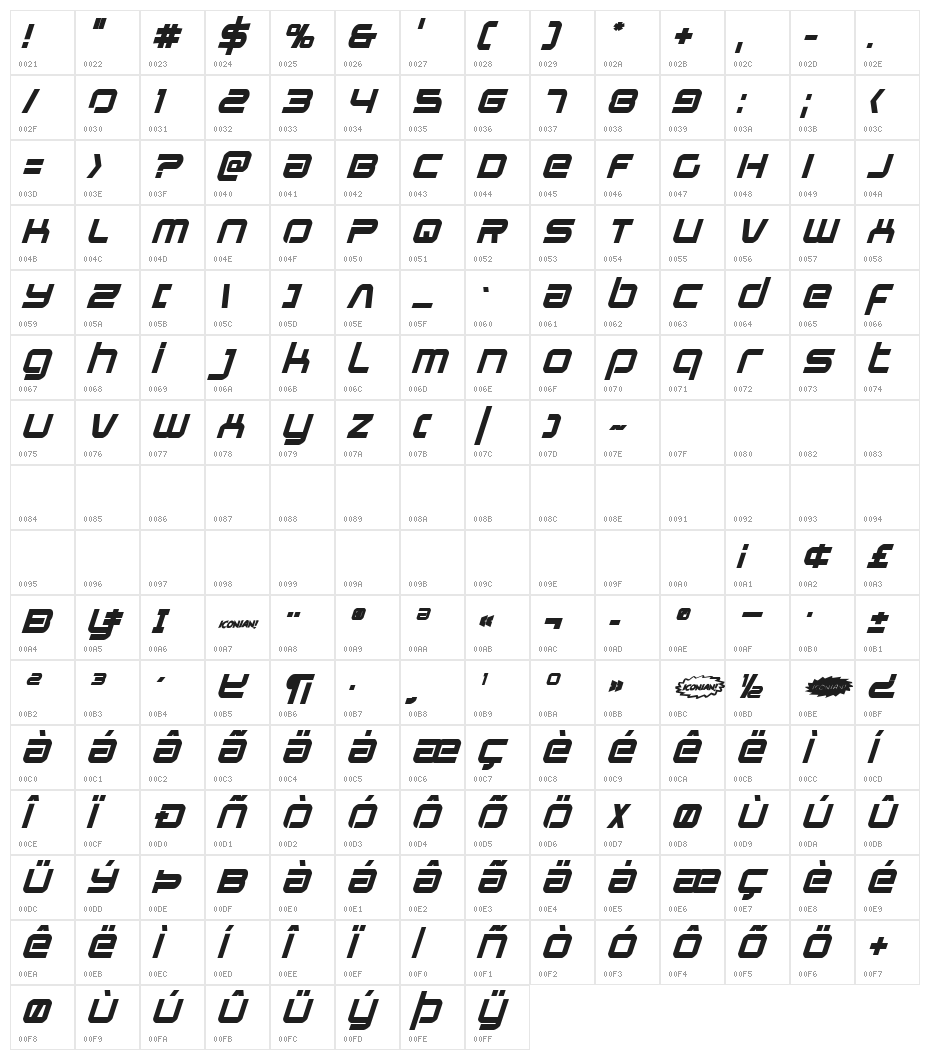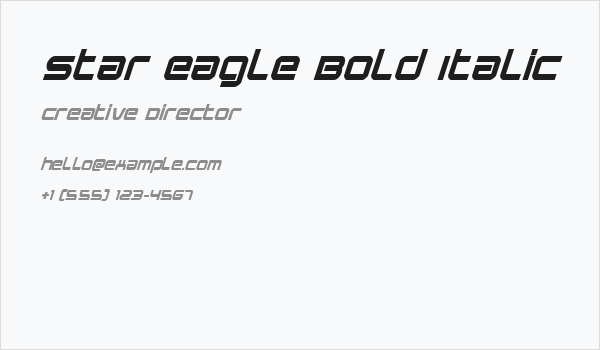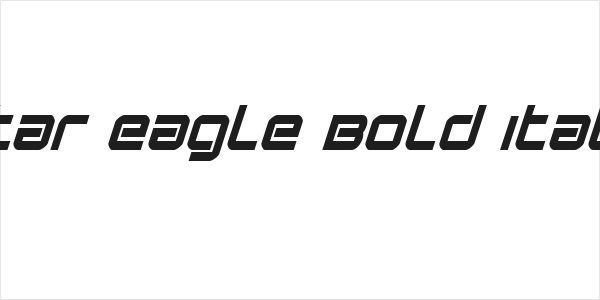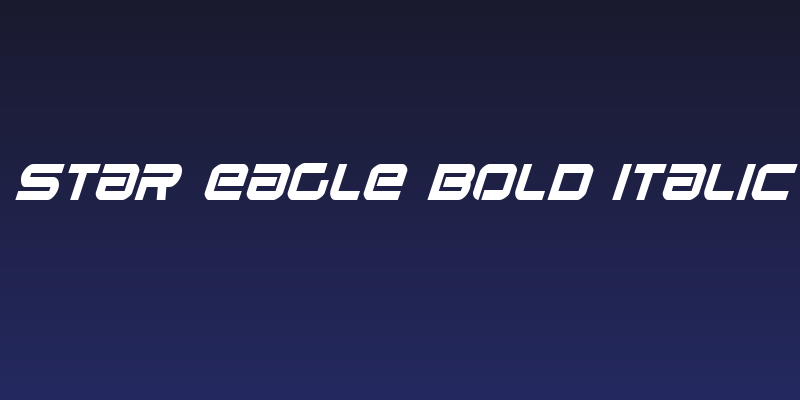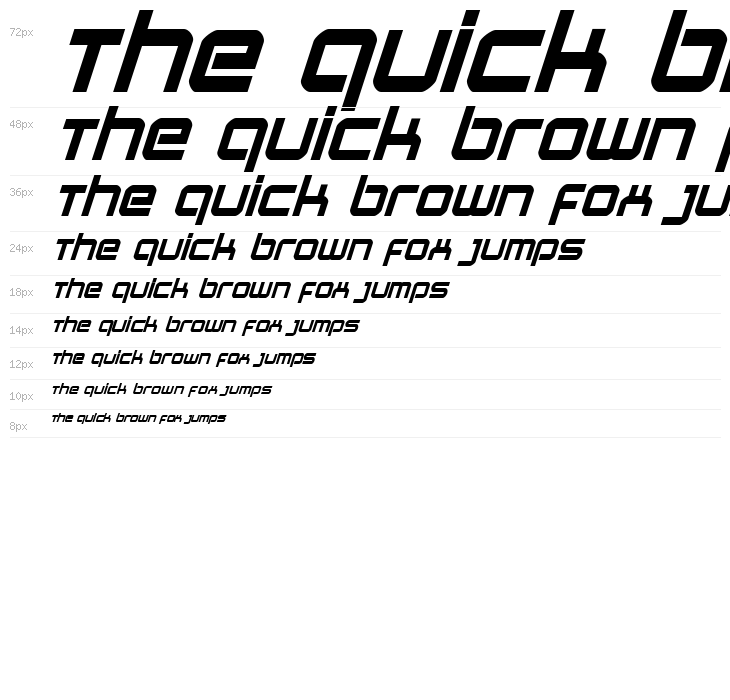
Star Eagle Bold Italic Font
Star Eagle Bold Italic Description
This font features a bold and italicized style with a futuristic and dynamic appearance. The characters are slightly slanted, adding a sense of motion and speed. The strokes are thick and consistent, providing a strong visual impact. The design incorporates sharp angles and clean lines, giving it a modern and sleek look. The uppercase and lowercase letters maintain a uniform style, while the numbers and special characters complement the overall aesthetic. This font is suitable for projects that require a bold and energetic feel.
| Use Case | Logos, Headlines, Branding |
| Proposed Projects | Ideal for branding, sports team logos, automotive designs, and technology-related projects. |